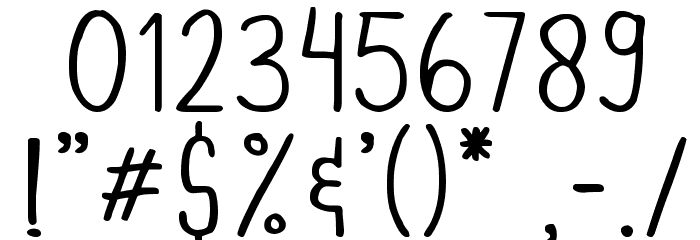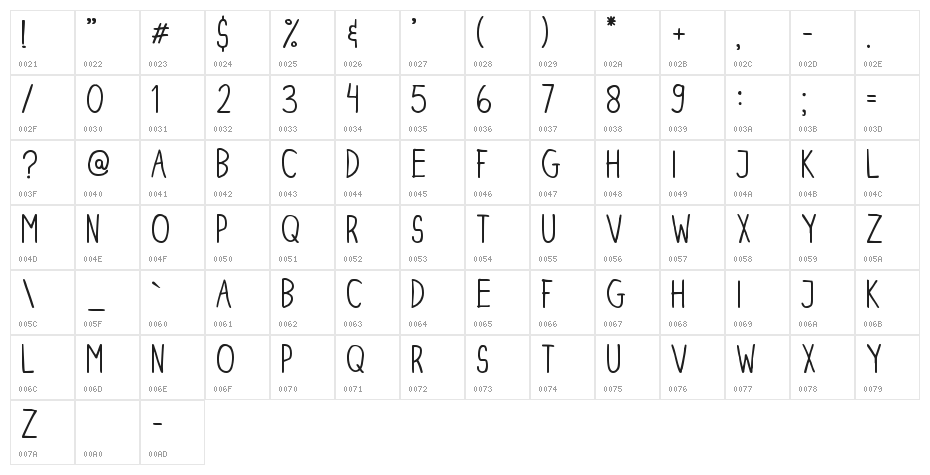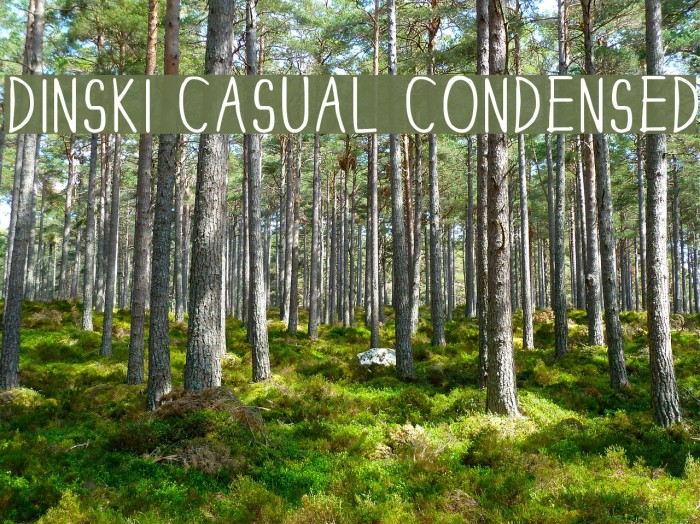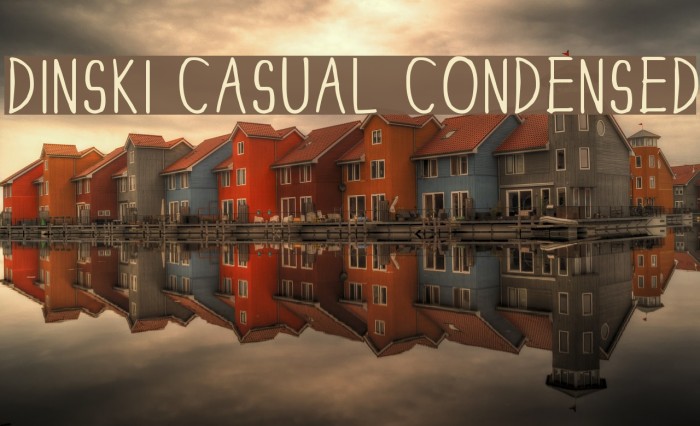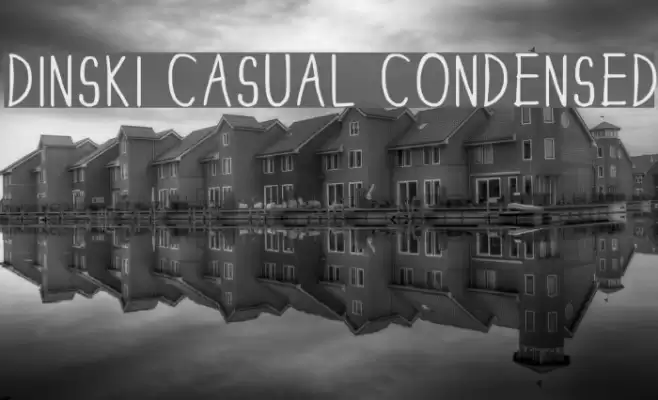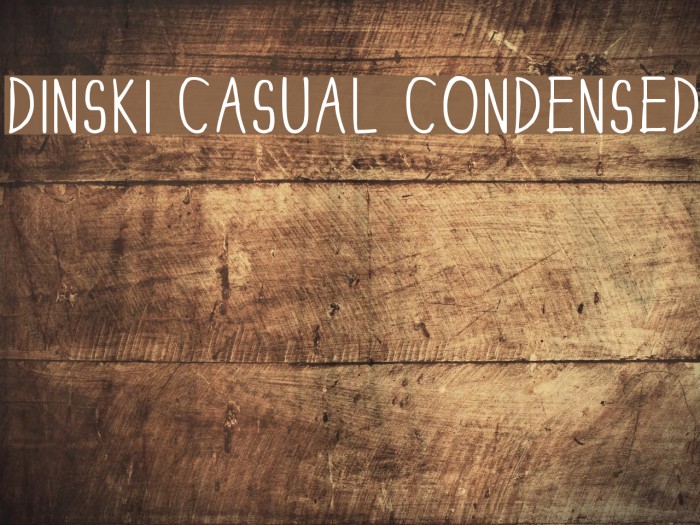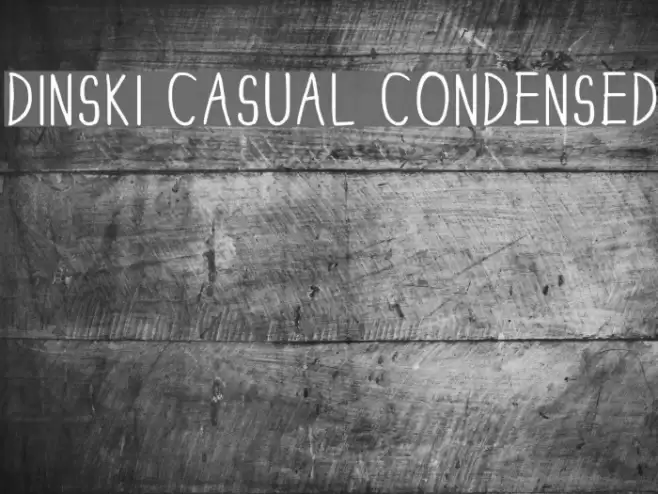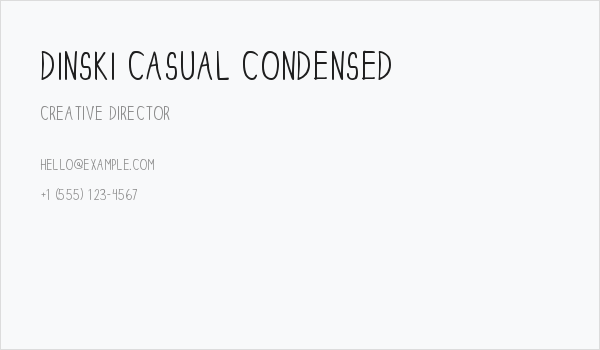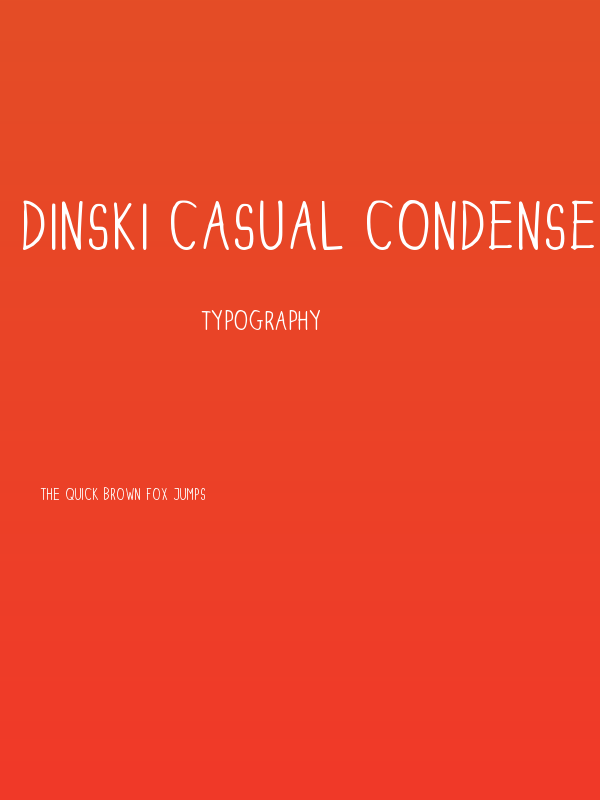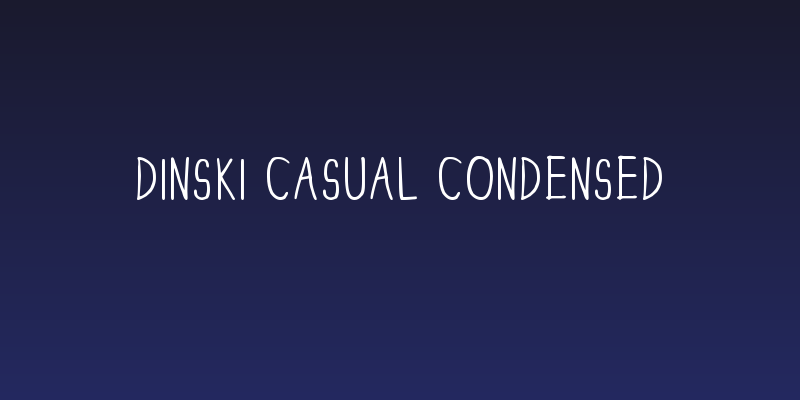
DINSKI CASUAL CONDENSED Font
DINSKI CASUAL CONDENSED Description
This font features a casual and playful design with a condensed structure. The characters are hand-drawn with a consistent stroke width, giving it a friendly and approachable appearance. The uppercase and lowercase letters maintain a uniform height, contributing to its neat and organized look. The numbers and special characters are styled to match the overall aesthetic, ensuring a cohesive appearance across all elements. The font's informal style makes it suitable for projects that require a relaxed and inviting tone.